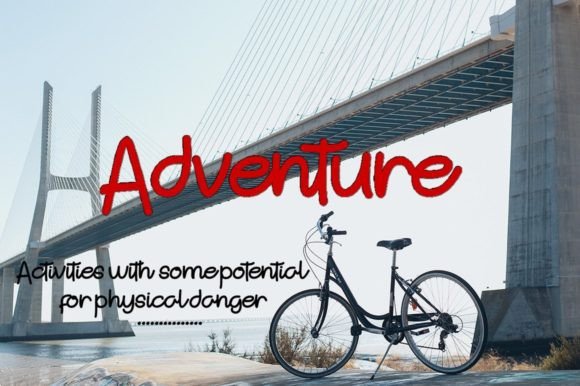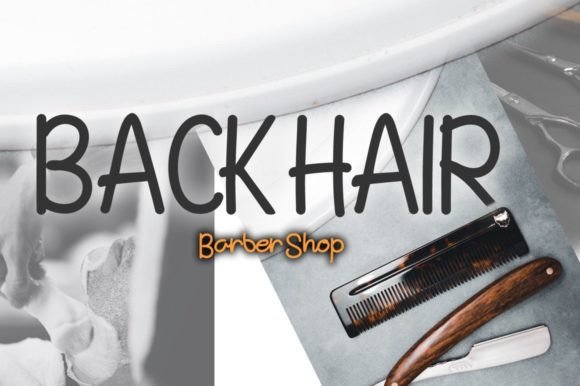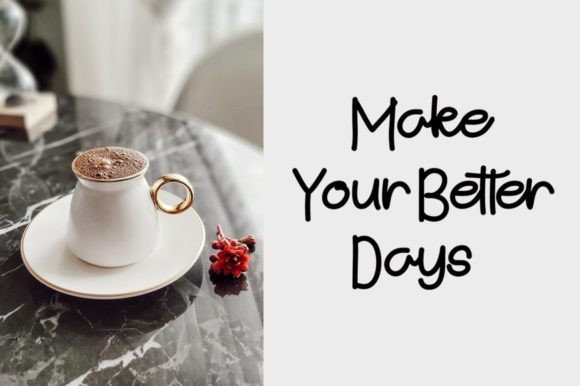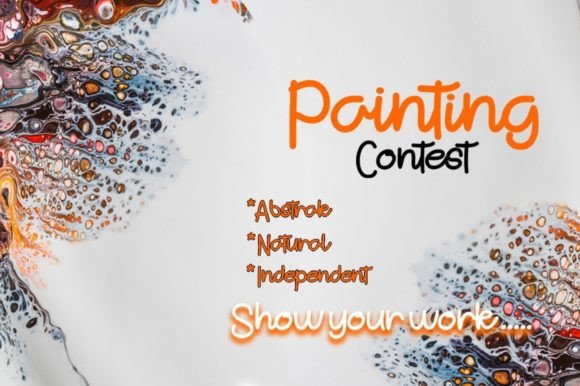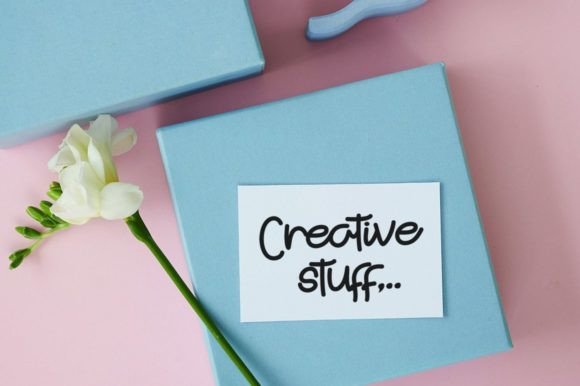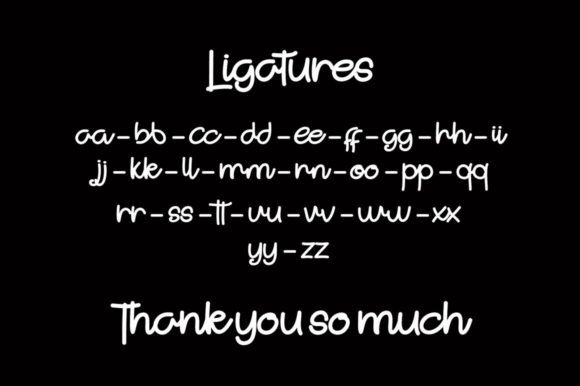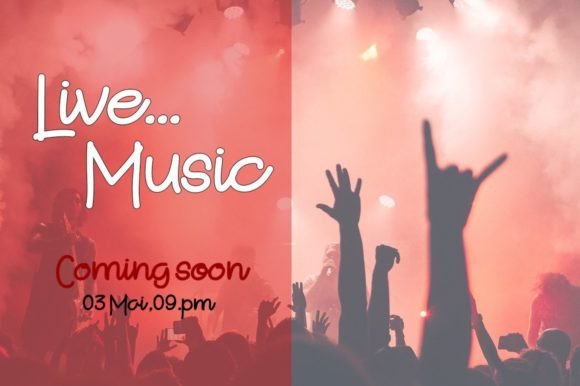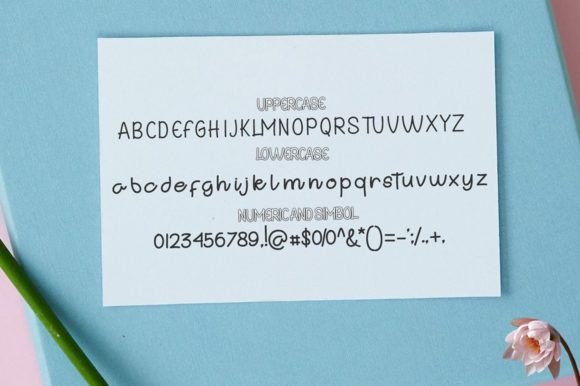
Challenger Font
About Challenger Font
“Challenger” is a stunning handwritten font designed to enhance various creative projects. Whether you’re working on logo design, branding, apparel design, signage, posters, or wedding invitations, this font provides a versatile and elegant solution for your typographic needs. The goal behind creating “Challenger” was to craft an easy-to-read script font suitable for a wide range of purposes, ensuring readability and style in every context.
“Challenger” offers not only aesthetic appeal but also functional versatility. Its elegant, flowing letterforms make it perfect for adding a touch of sophistication to your projects, ensuring they stand out and leave a lasting impression. Whether you’re designing a logo that needs to convey professionalism or crafting wedding invitations that require a touch of elegance, “Challenger” provides the ideal blend of style and readability.
Embrace the beauty and functionality of “Challenger” in your creative endeavors, and let its elegant handwritten charm elevate your designs. With its accessibility and timeless appeal, this font allows you to create visually stunning and memorable pieces that resonate with your audience. Enjoy the process of transforming your ideas into elegant and impactful designs with the help of “Challenger.”